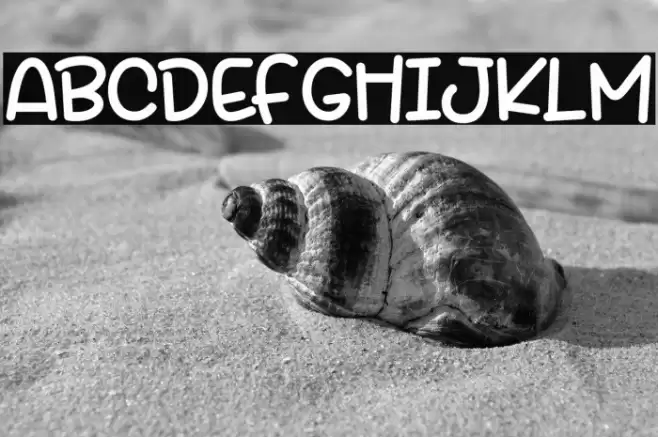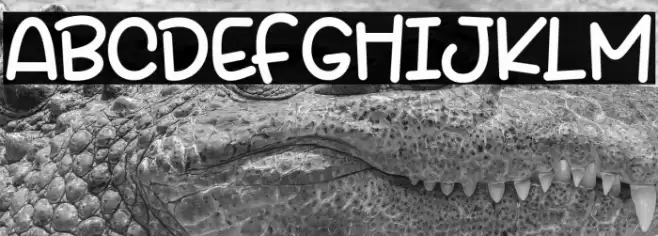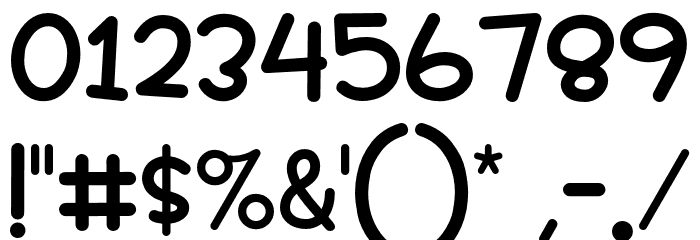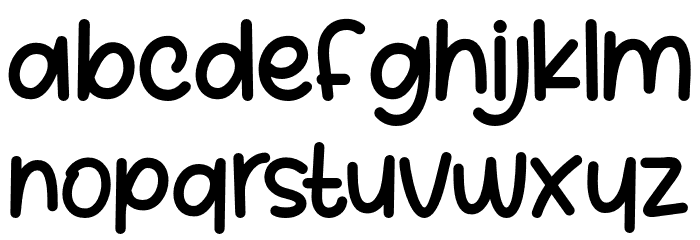
Beelova Font
Beelova Description
This playful and rounded font features a handwritten style with smooth curves and a friendly appearance. Each character is crafted with a consistent stroke width, giving it a uniform look while maintaining a casual and approachable feel. The uppercase letters are bold and slightly wider, while the lowercase letters maintain a more compact and cozy form. The numbers and special characters are designed to match the overall style, ensuring a cohesive look across all text. This font's unique charm makes it suitable for projects that require a personal touch or a fun, informal vibe.
A playful, handwritten font with smooth curves and a friendly appearance from Uncategorized fonts.
- Proposed Projects: Ideal for children's books, greeting cards, playful branding, and social media graphics.
- Overall Style: Casual
- Use Case: Headlines, Logos, Informal Text